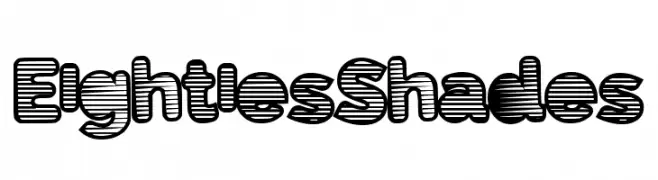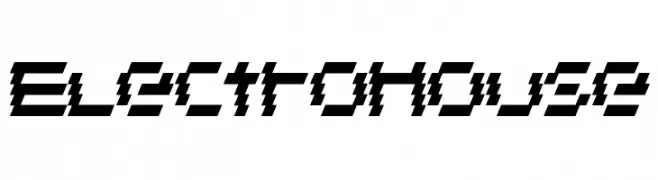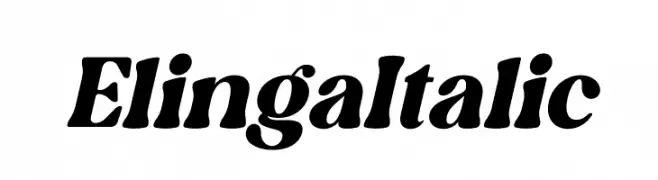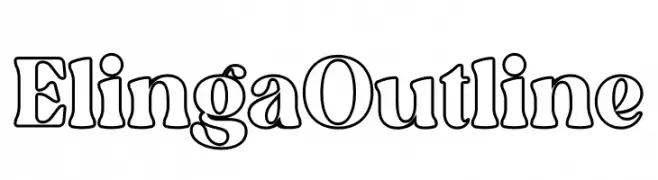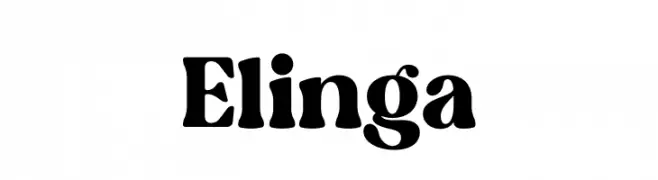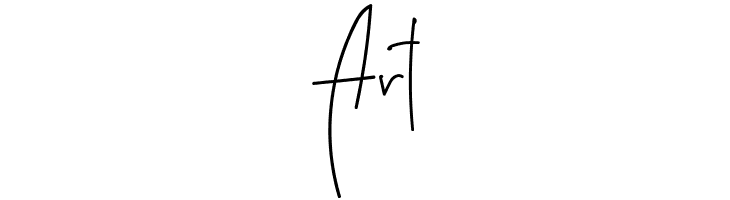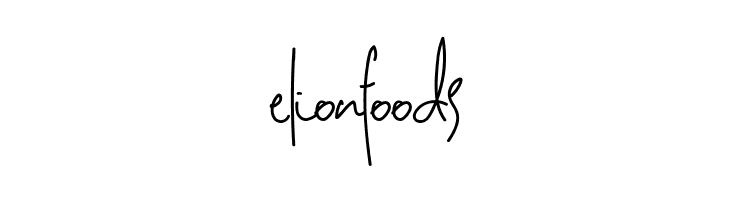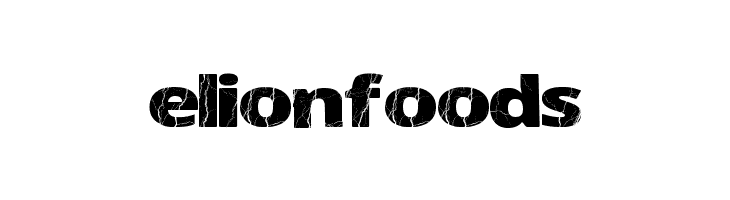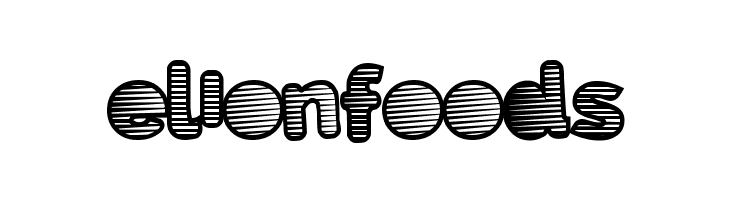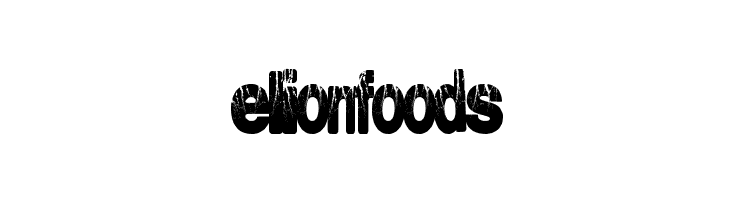
A bold, textured font with a distressed, 1980s-inspired style.
A bold, retro font with a unique striped pattern, ideal for vintage-themed projects.
A bold, distressed font with a cracked texture for an edgy look.
A bold, distressed font with a grunge texture for an edgy appearance.
A bold, futuristic font with a digital, angular design.
A playful, informal handwritten font with tall, narrow letterforms and a casual style.
A bold, rounded font with a playful, retro vibe.
A bold, italicized font with dynamic strokes and a modern yet classic appeal.
A bold outline font with a modern yet vintage flair, featuring hollow interiors and consistent character width.